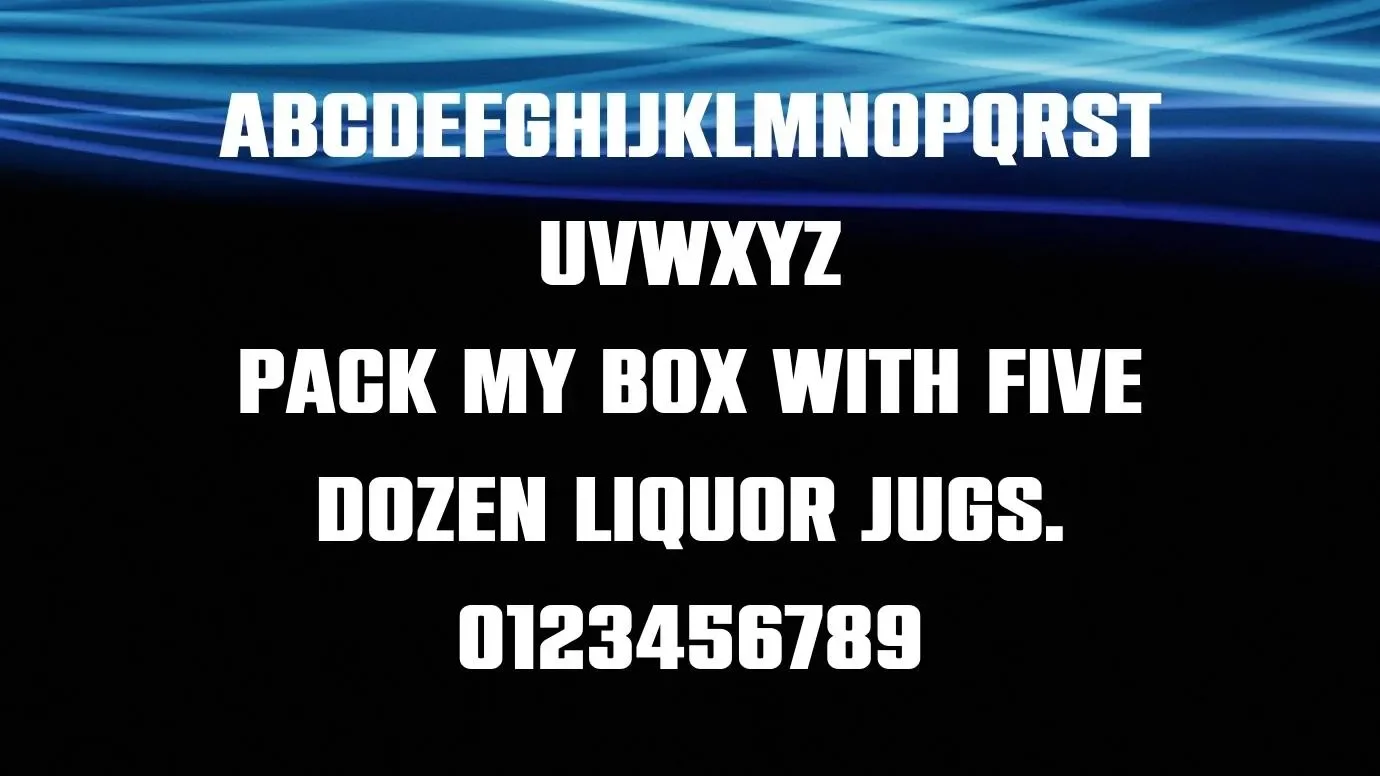
Introducing Rockstar Font! This font has bold sans-serif characters so, it is also known as a rockstar display font. It was established by Typologic. This font has more than 100 large narrow characters that create a beautiful font structure. That’s why it is perfect for large headlines and bold textures.
This typeface has beautiful contrast and unique features that make it more effective and gorgeous. It is good for albums and magazine designs for their heading and titling purposes. It has an extraordinary and attractive look this is the reason it got huge popularity in the designing market.
Reason to Use Rockstar Display Font
You can use this display font for various heading and titling purposes like website heading and blog titlings. This font is suitable for hotel names, shop names, advertisements, and many other related projects. All the bold characters are most useful for product designing purposes.
This font is also suitable for various types of display designs with the help of another font like new york giants font. You can use this effective and eye-catching font for logo designs, post descriptions, magazine designs, and newspapers.
You can also use this font in educational systems for assignments, book designs, notes, ebook covers, and documentation. It is also perfect for daily routine projects and general reports in offices. This font is also useful for branding logos, certificate designs, animated logos, and so on.
Rockstar Display Font View
What type of font is Rockstar Display Font?
It is a display typeface that has bold sans-serif characters. This cozy font was designed and shared by Typologic.